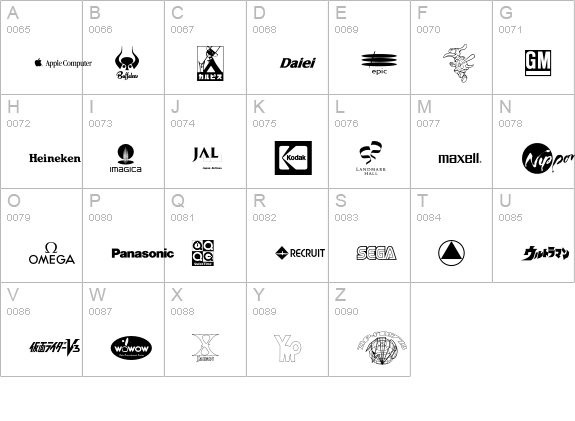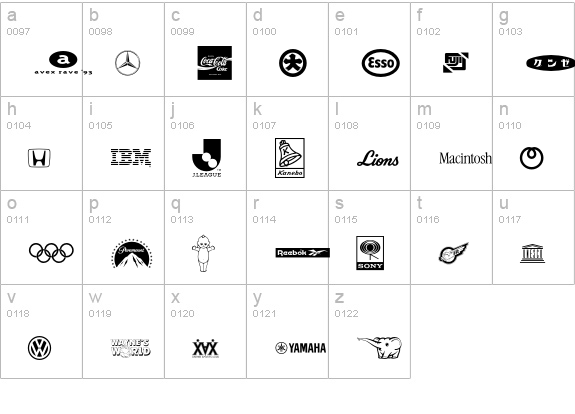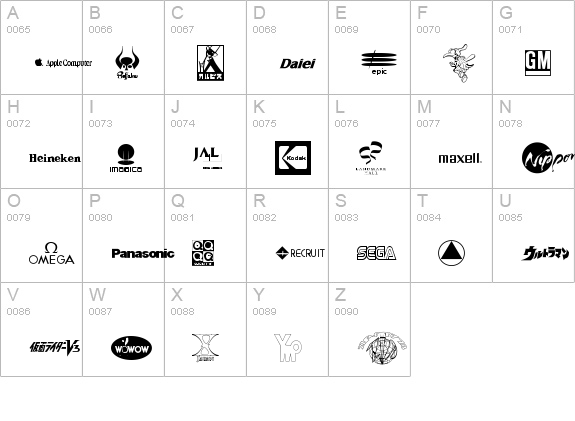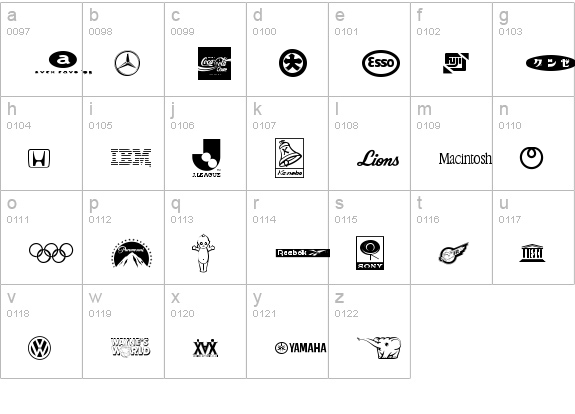
Saru-TradeMarks Font Details
Introducing Saru-TradeMarks, a captivating and versatile font that is sure to leave a lasting impression. With its unique blend of elegance and sophistication, this font is perfect for adding a touch of professionalism to any design project. Saru-TradeMarks boasts a wide range of characters, each meticulously crafted to perfection. From its sleek and stylish uppercase letters to its intricate and graceful lowercase characters, every detail of this font has been carefully considered. But what sets Saru-TradeMarks apart is its versatility. Whether you're designing a logo, creating a poster, or crafting a social media graphic, this font adapts effortlessly to any context. It effortlessly captures attention and conveys your message with clarity and distinction. And the best part? Saru-TradeMarks is available for free download at FontsMarket.com. Yes, you read that right – this incredible font can be yours at no cost! Simply visit FontsMarket.com and start exploring the world of Saru-TradeMarks today. So why wait? Elevate your design projects with Saru-TradeMarks and experience the power of this exceptional font. Download it for free at FontsMarket.com and discover a world of endless possibilities. Get ready to make a statement and leave a lasting impression with Saru-TradeMarks.